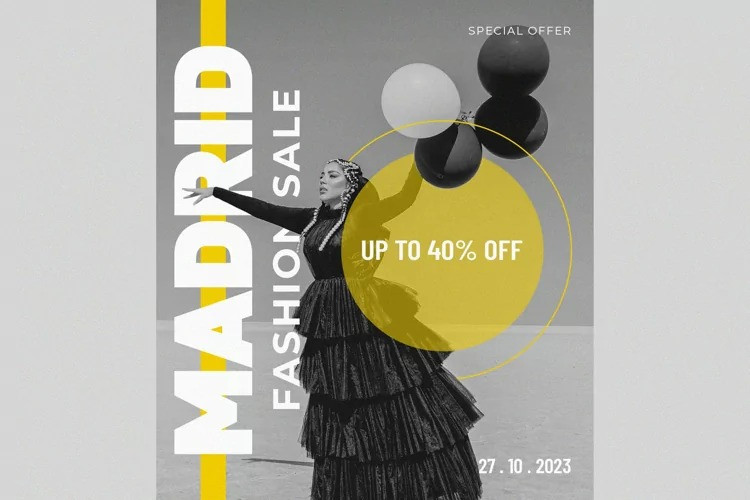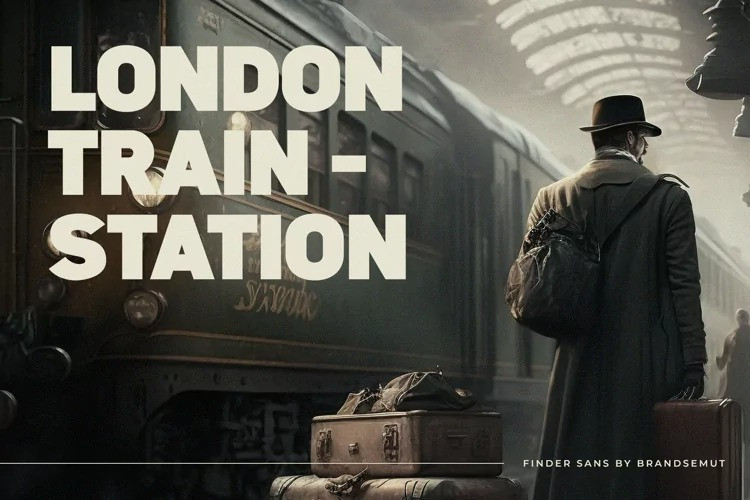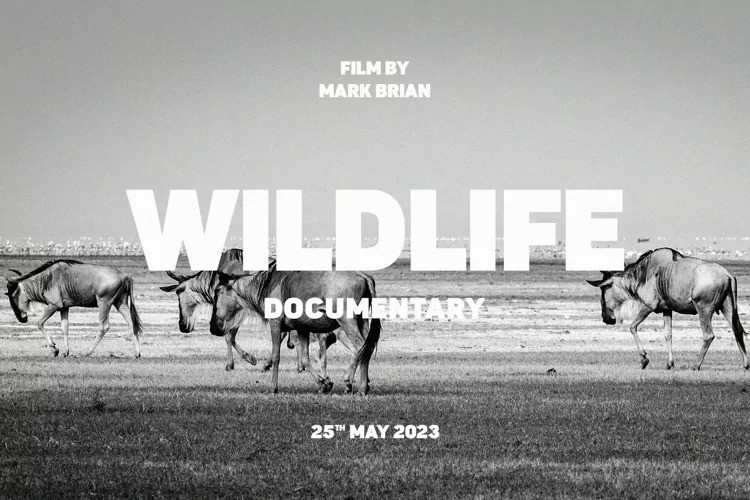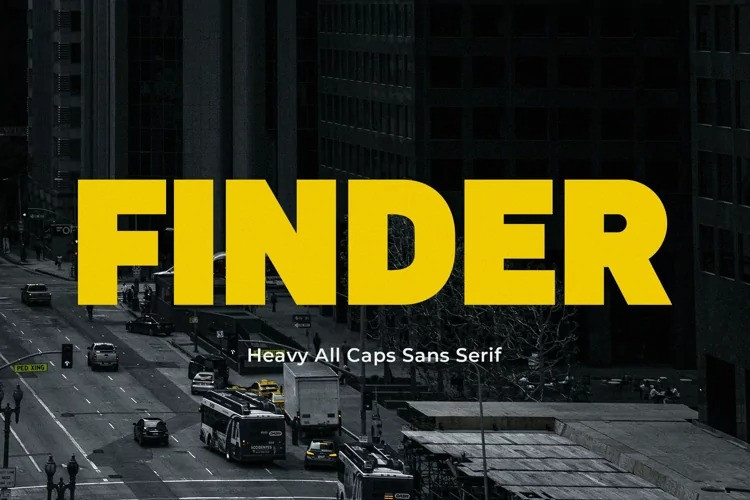
Finder Sans Serif Font is a cool display sans serif font crafted & designed by BrandSemut. It is the perfect font for titles or words needing a more dramatic emphasis. Finder is a modern and classy typeface, best used as a display for headings, logos, branding, magazines, product packaging and invitations. Finder come with clean lines and smooth curves give any project an extra touch of class.